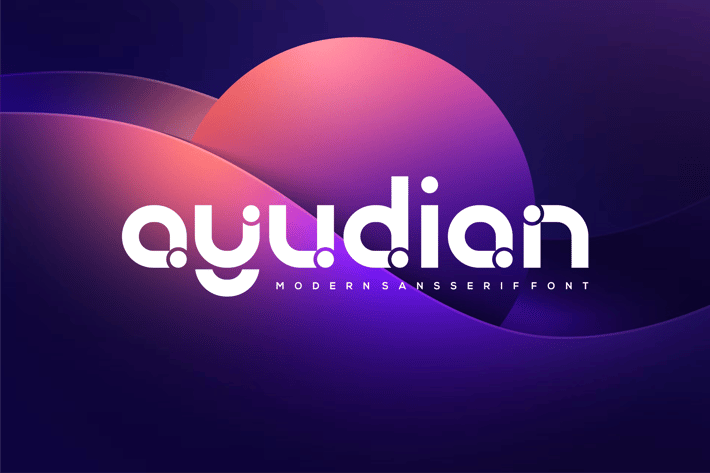
Ayudian - Modern Display Font
Introducing our new product Ayudian - Modern Display Font
Ayudian - Modern Display Font is and elegant and authentic display font.